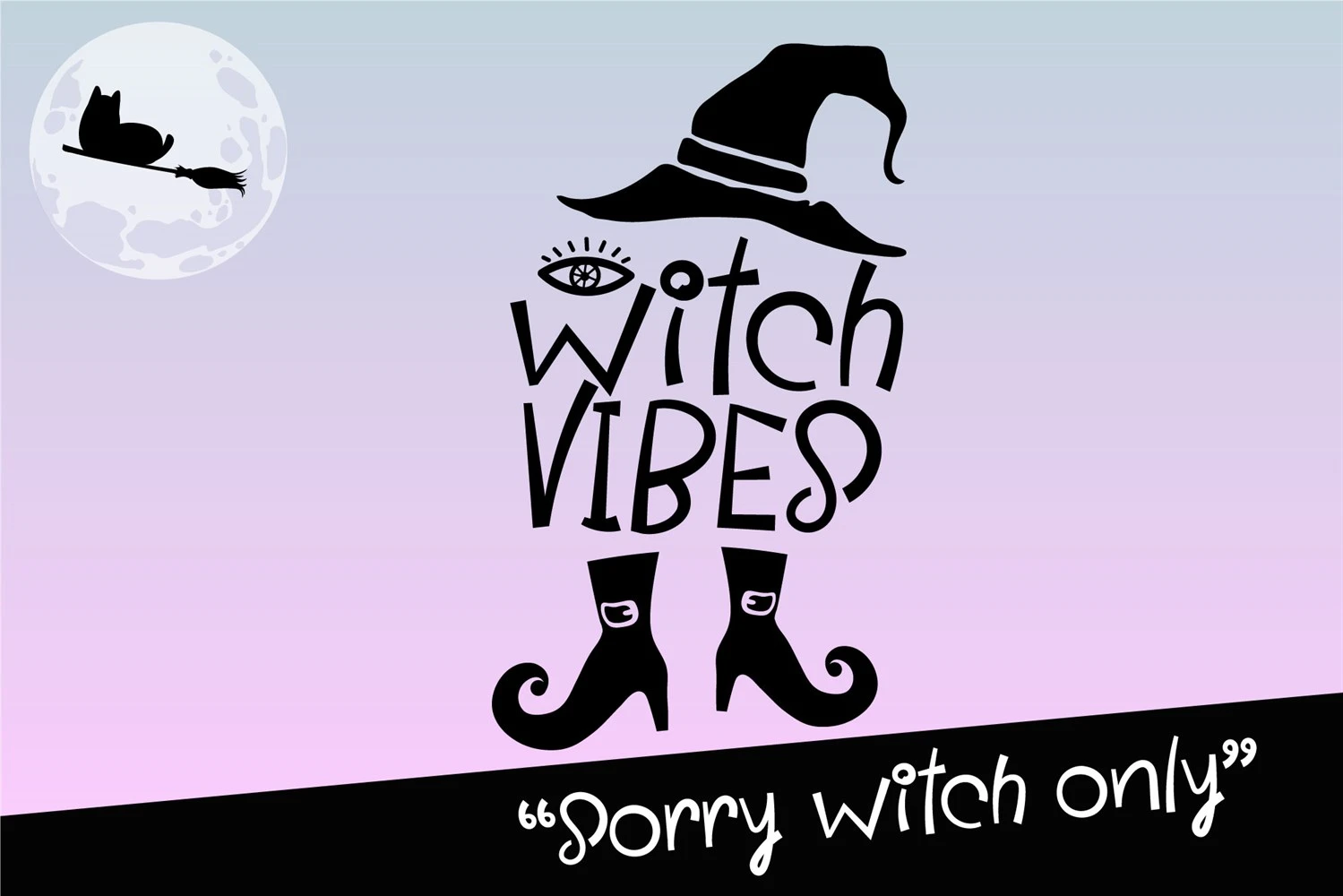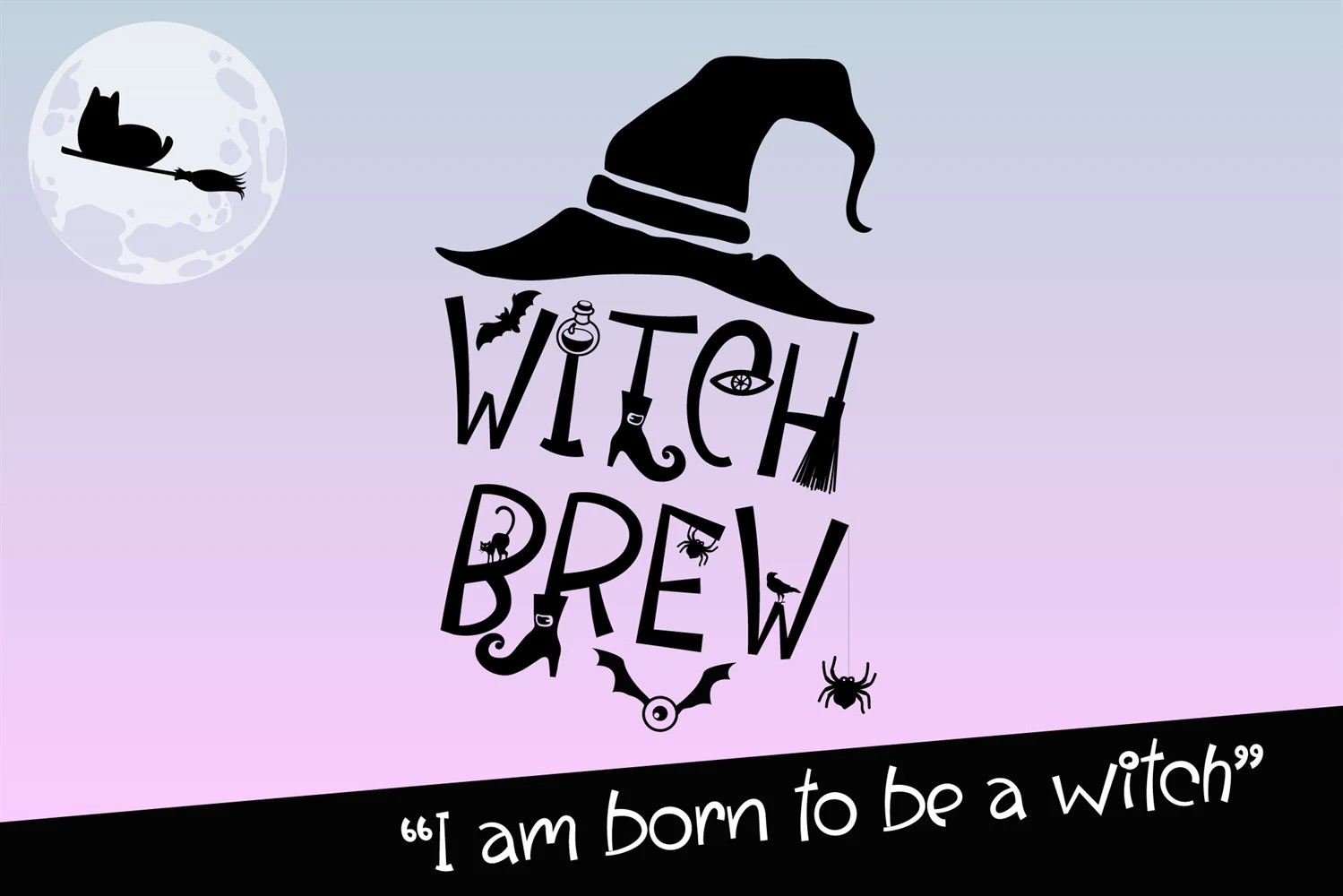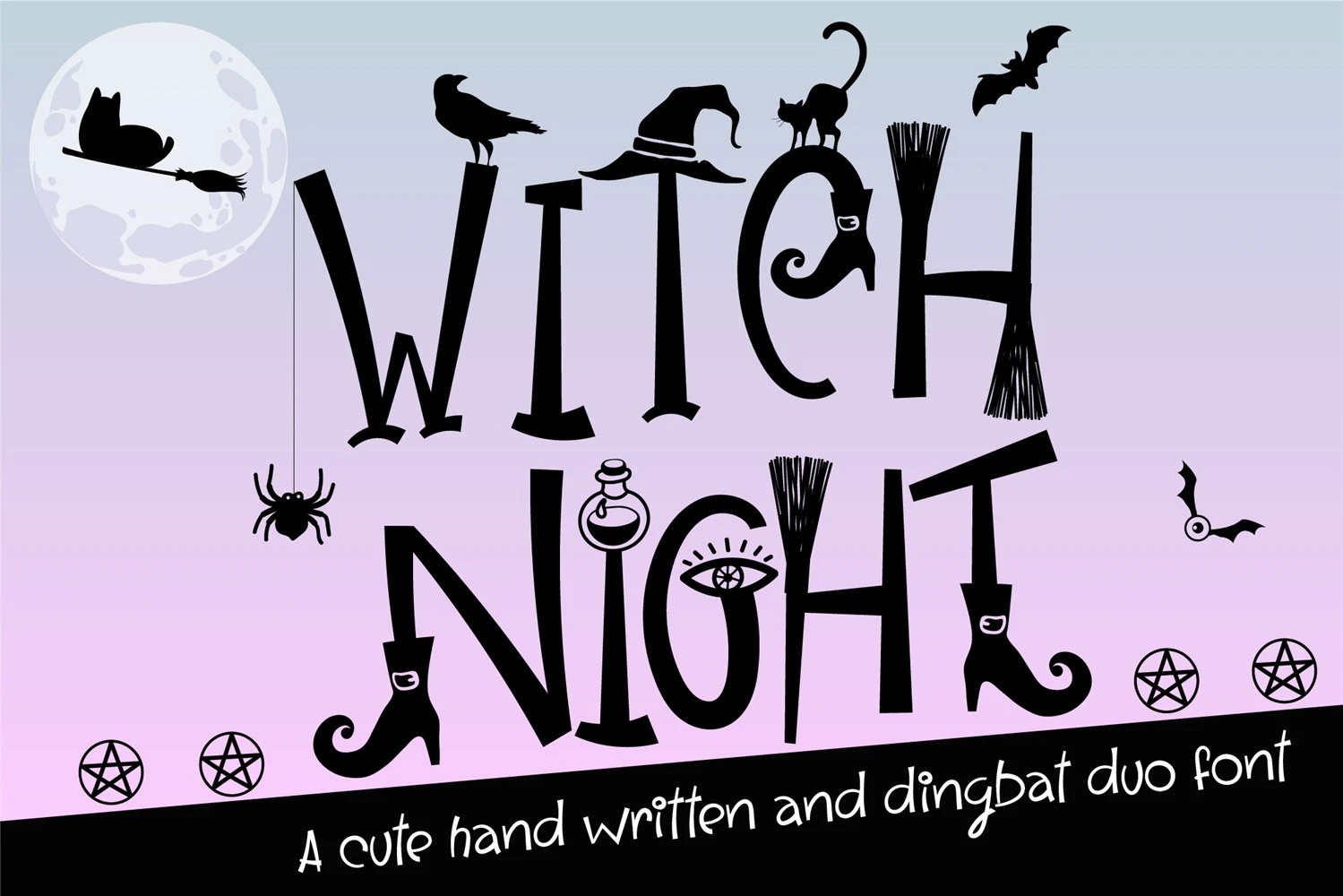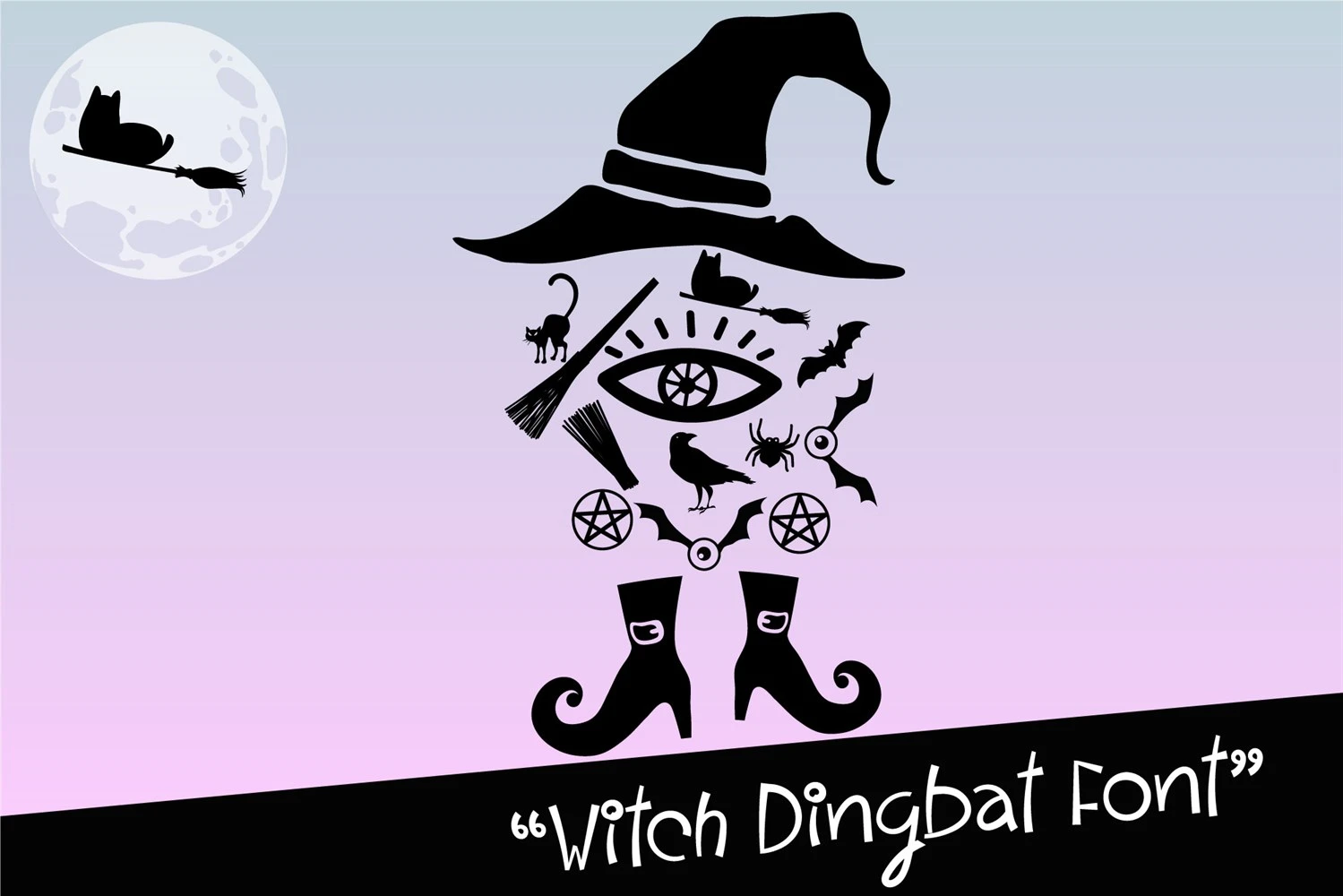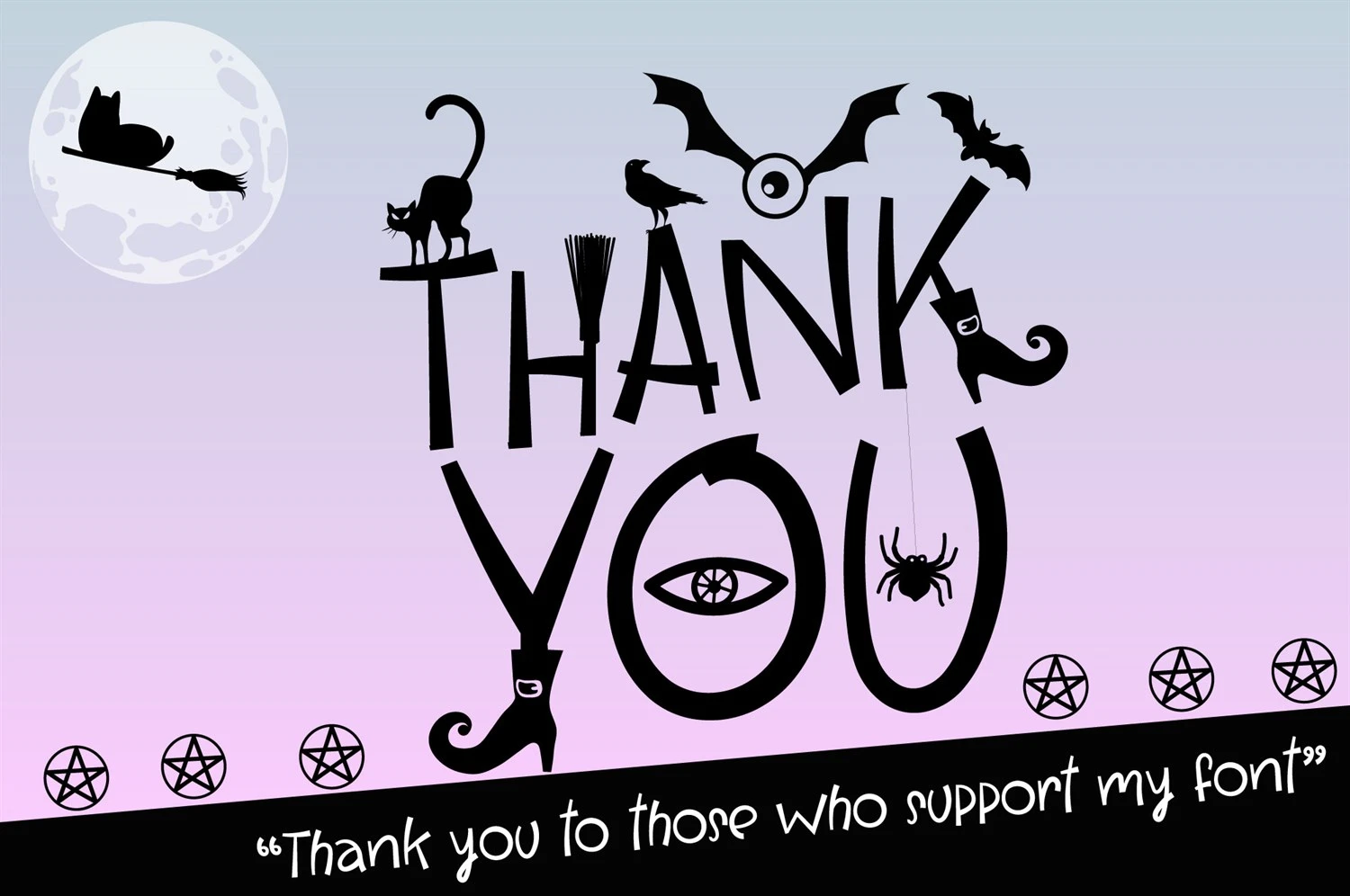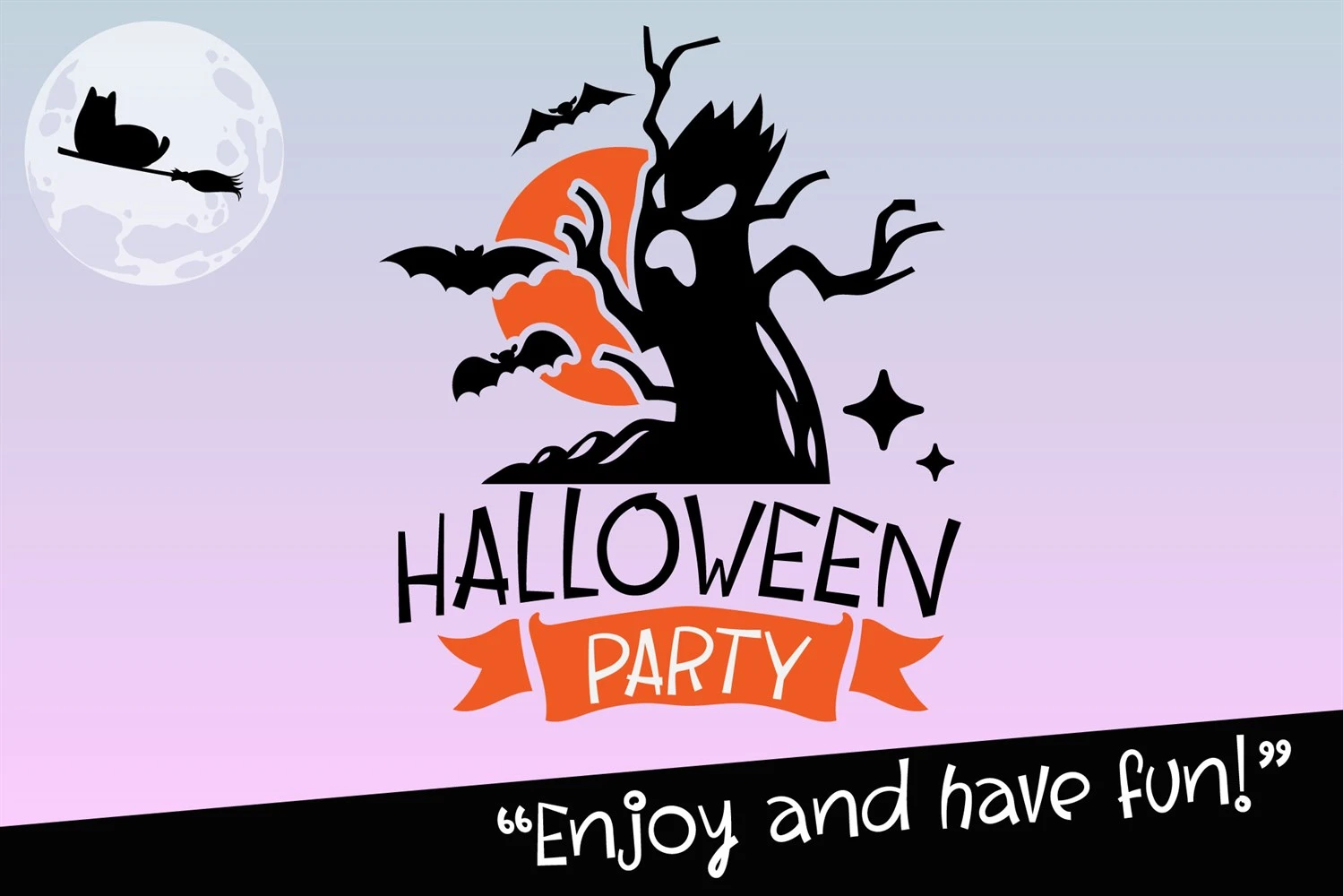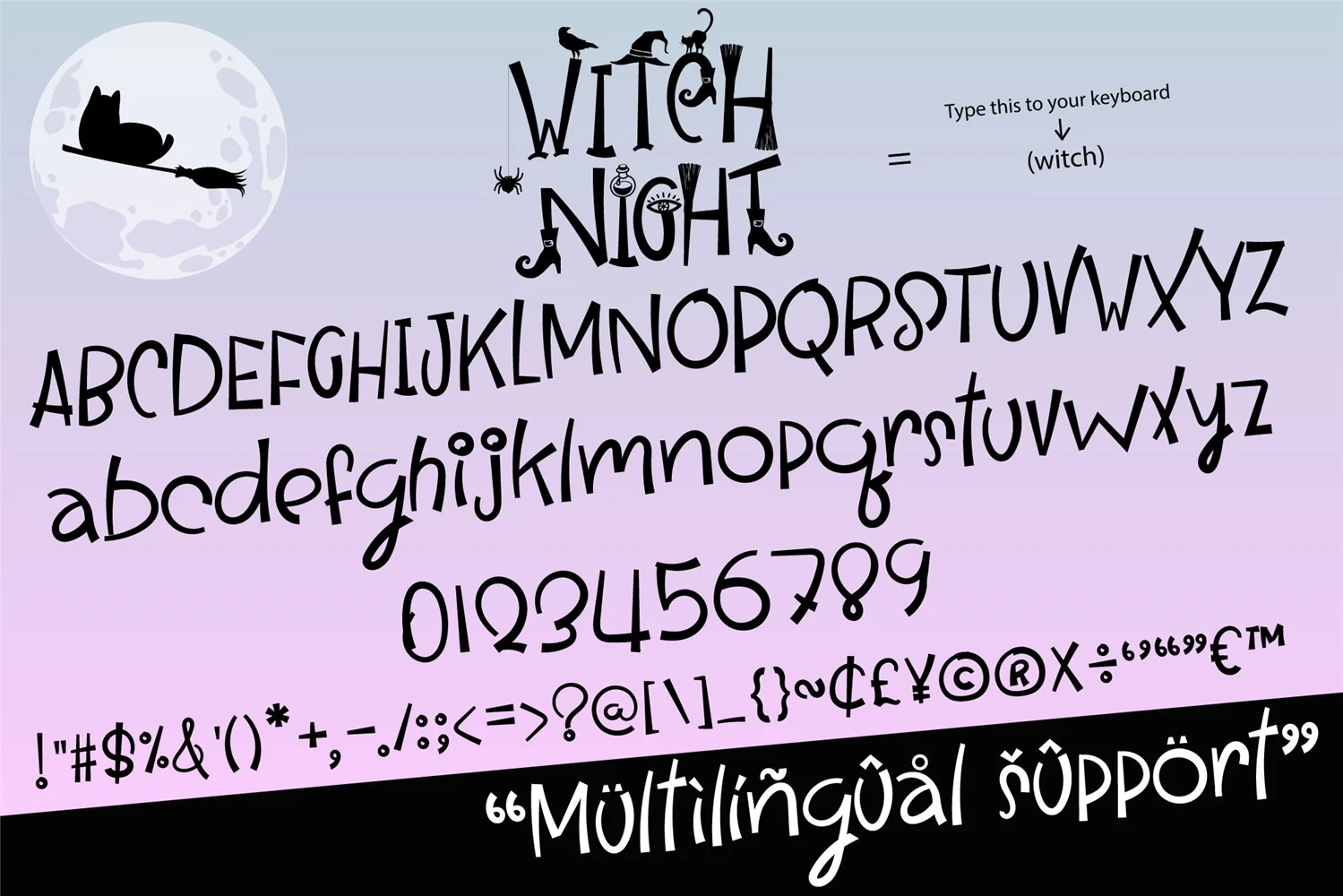
Unleash the enchanting and spooky vibes with Witch Night Font. This adorable duo font, consisting of a script and dingbats, is perfect for all your Halloween-themed projects. Whether you're working on Halloween crafts, designing horror movie posters, creating eye-catching t-shirts, or anything else that needs a touch of magic, Witch Night Font has got you covered. Its quirky and spectacular look will captivate attention and add a unique charm to your designs. Get ready to embrace the witchy spirit and make your creations stand out with this cute and spooky font.